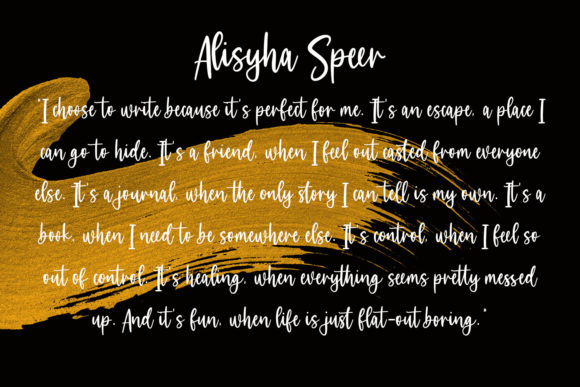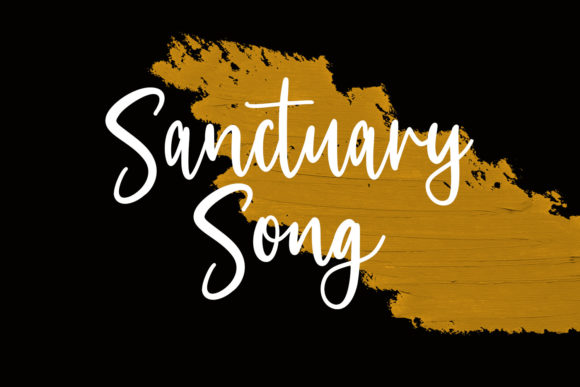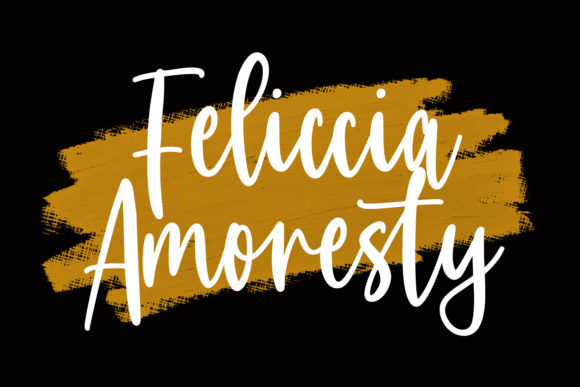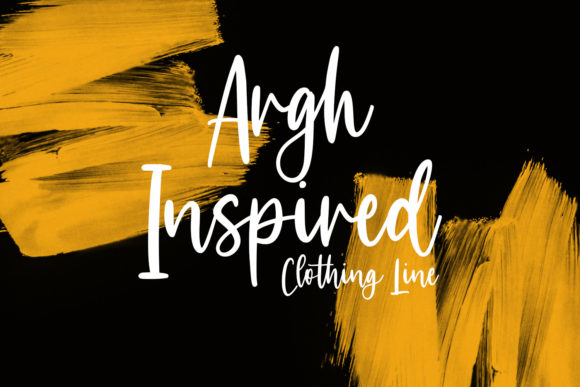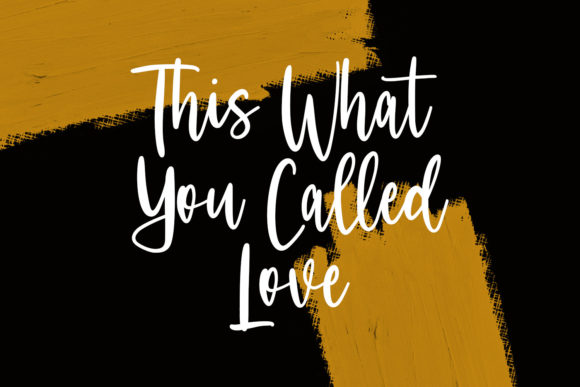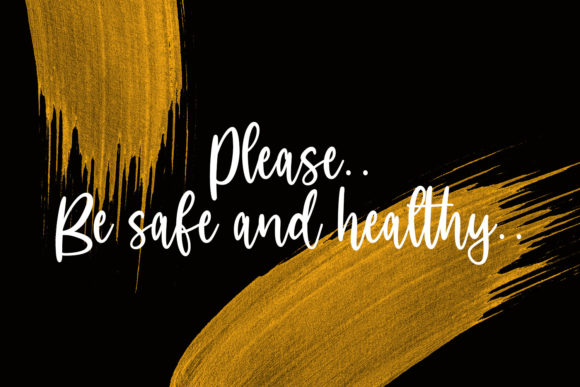
Introduction to Feliztha Script Font
Feliztha Script is a delicate and beautiful script font.
Incredibly versatile, this font fits a wide pool of designs, elevating them to the highest levels Add this font to your favorite creative ideas and notice how it makes them come alive.
Key Features of Feliztha Script Font
Why Choose Feliztha Script Font?
Feliztha Script Font offers exceptional quality and versatility, making it a valuable addition to your design toolkit. Whether you’re creating for personal projects or commercial use, Feliztha Script Font delivers professional results.